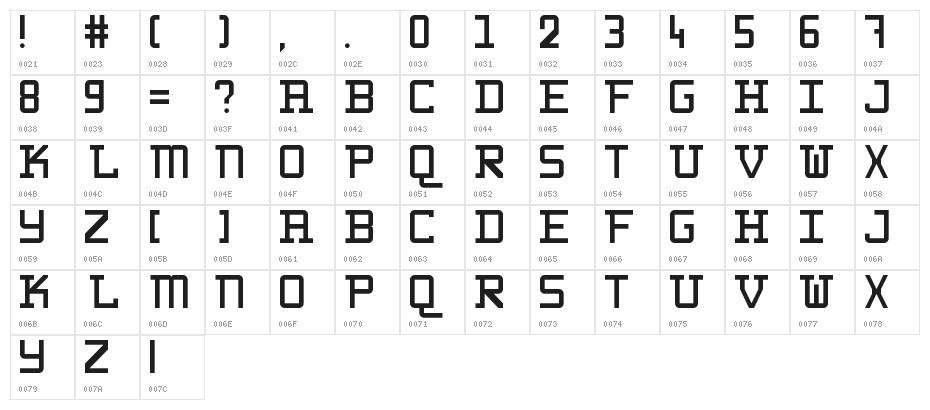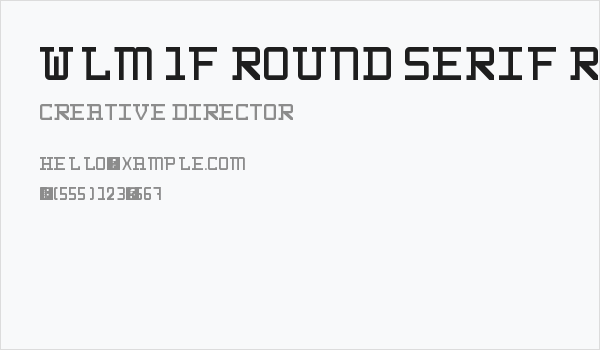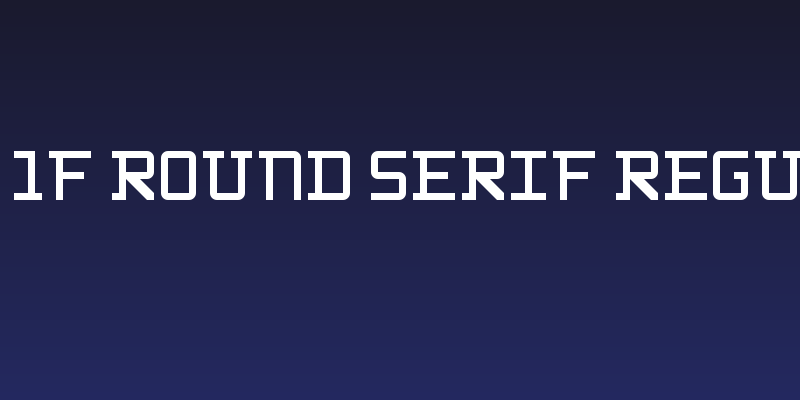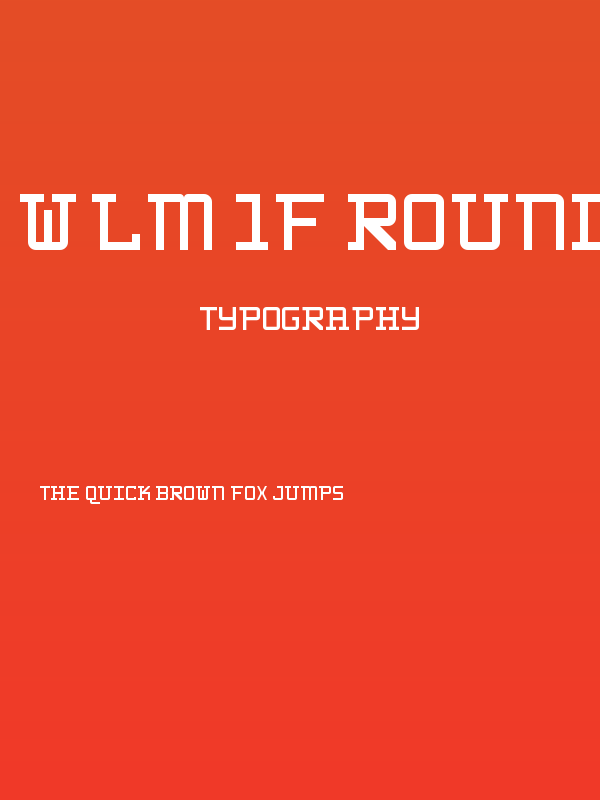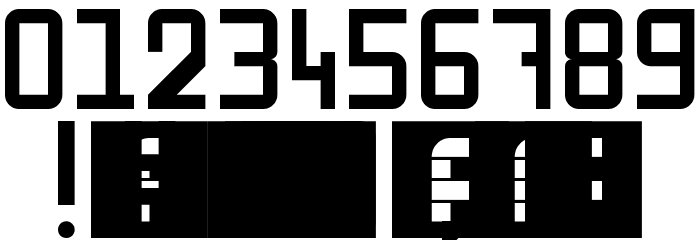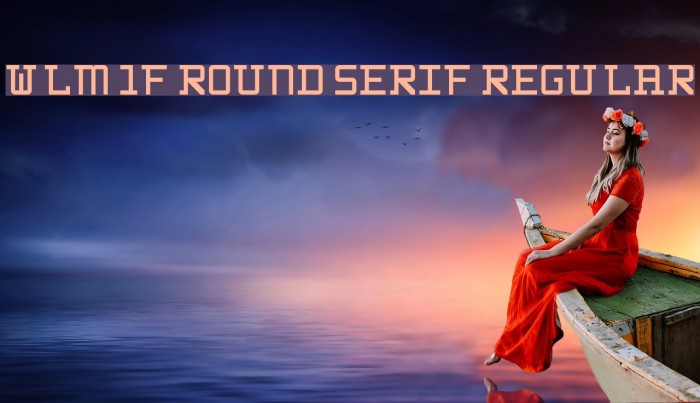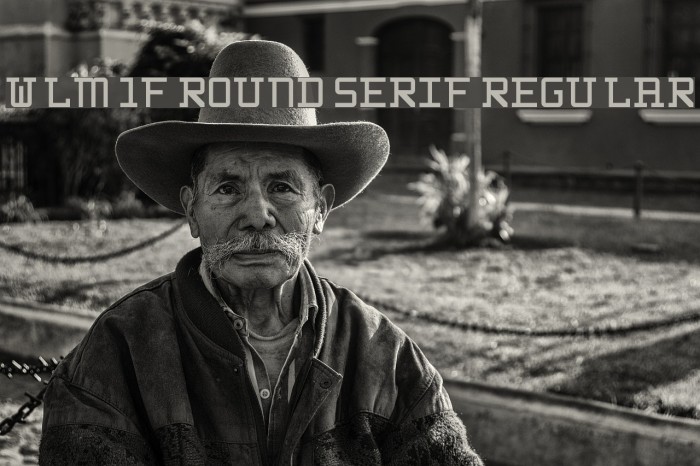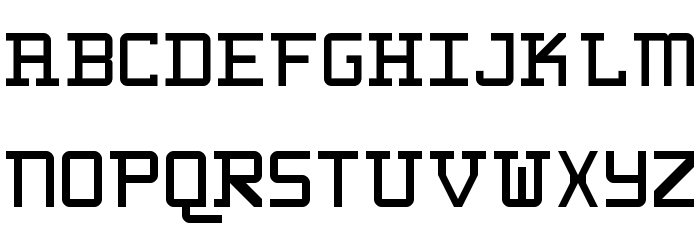
WLM 1F Round Serif Regular Font
WLM 1F Round Serif Regular Description
This font features a unique blend of geometric and serif elements, creating a modern yet classic appearance. The characters are constructed with a consistent stroke width, giving them a monospaced feel, while the rounded serifs add a touch of elegance. The uppercase letters are bold and structured, with a slight industrial influence. The numerals are clear and legible, maintaining the same geometric style. Special characters are designed to match the overall aesthetic, ensuring cohesion across all elements. This font is versatile, suitable for both digital and print media.
| Use Case | Headlines, Logos, Editorial Design |
| Proposed Projects | Ideal for branding, editorial design, signage, and digital interfaces where a modern yet classic look is desired. |